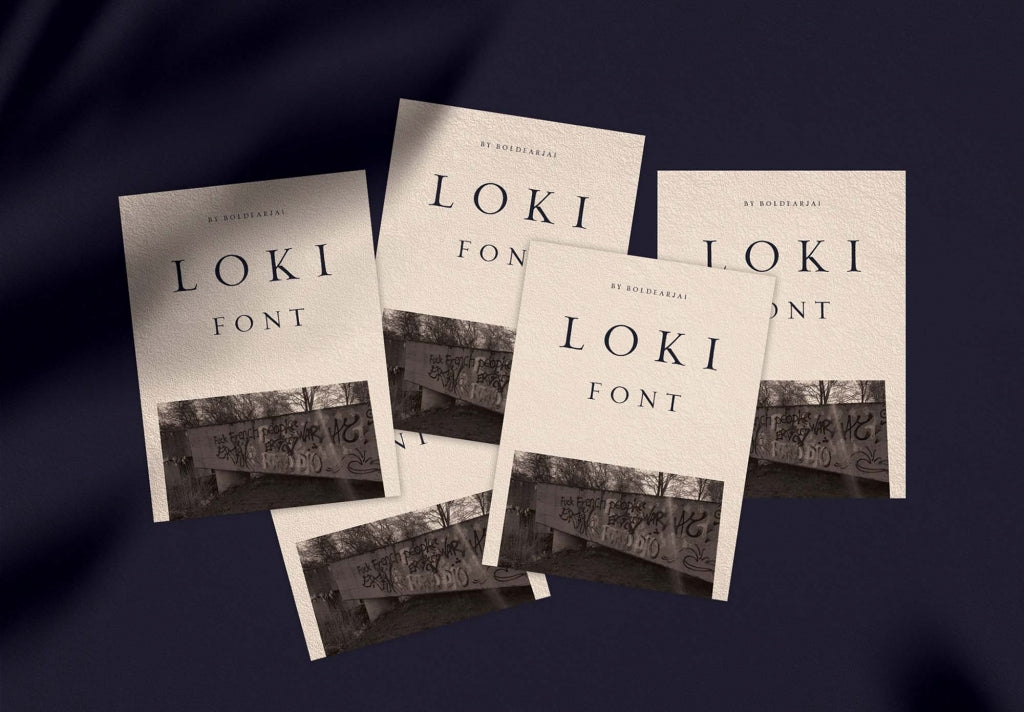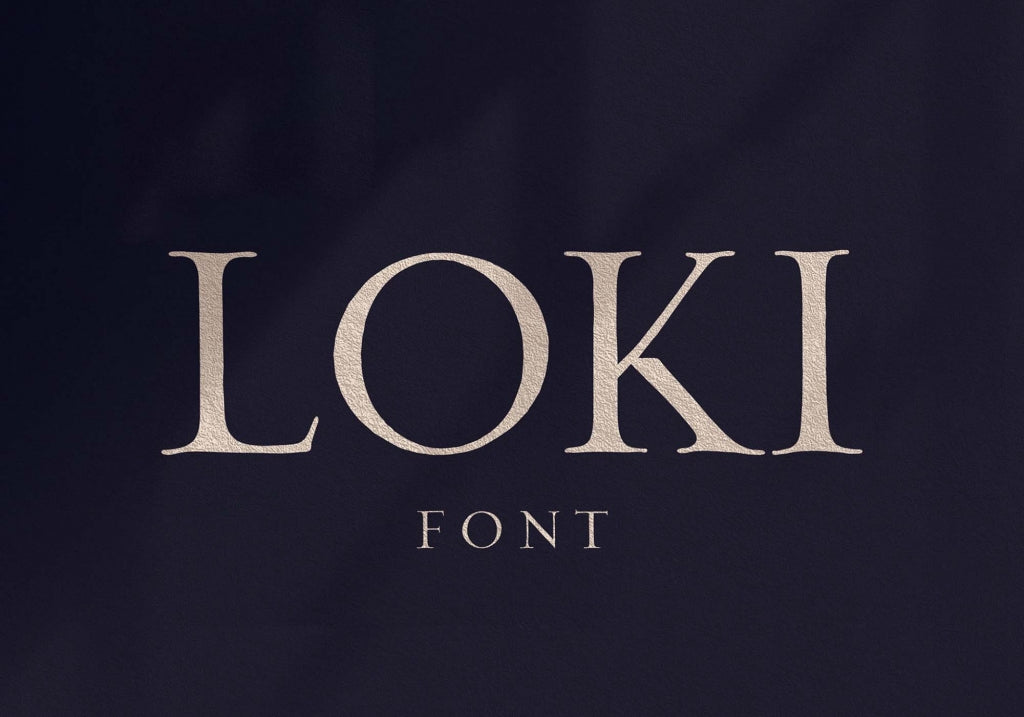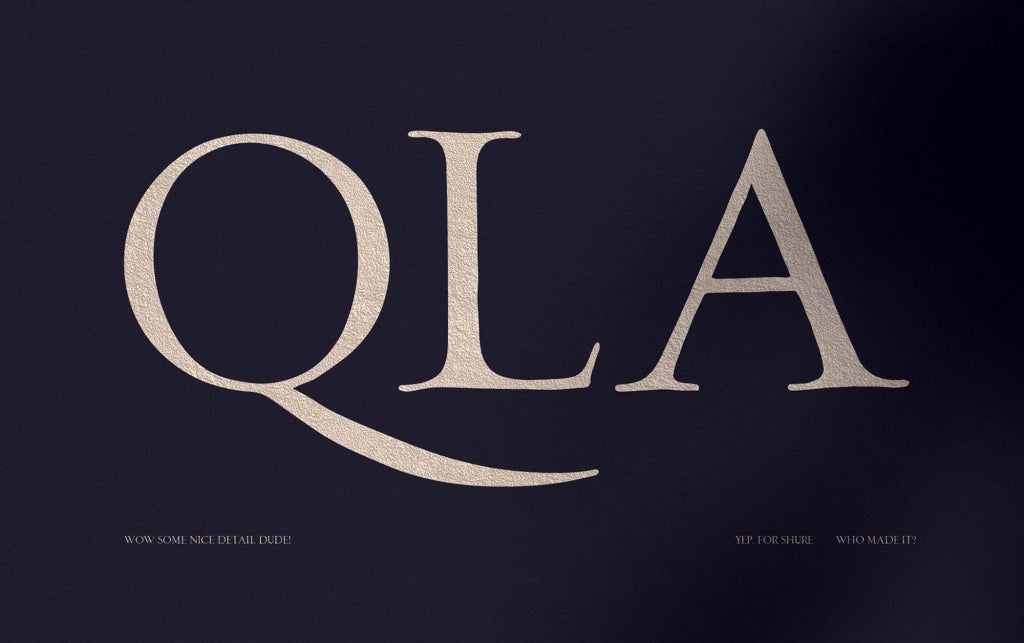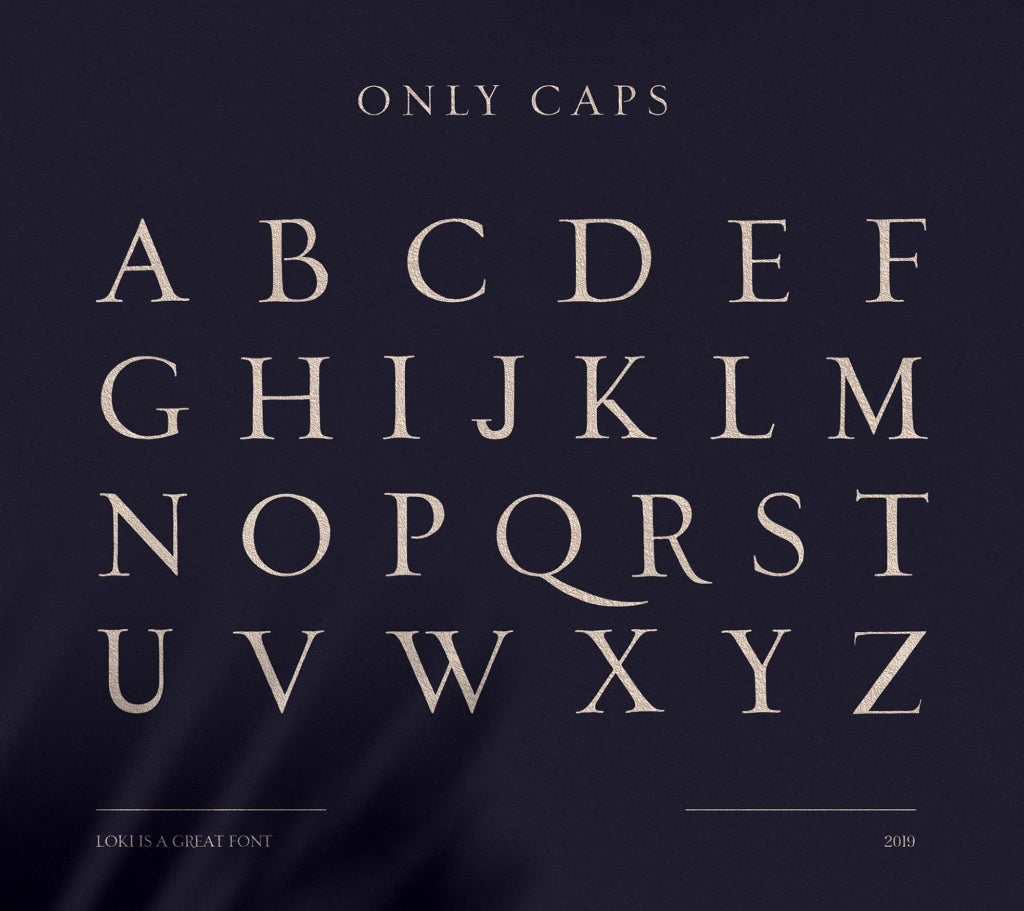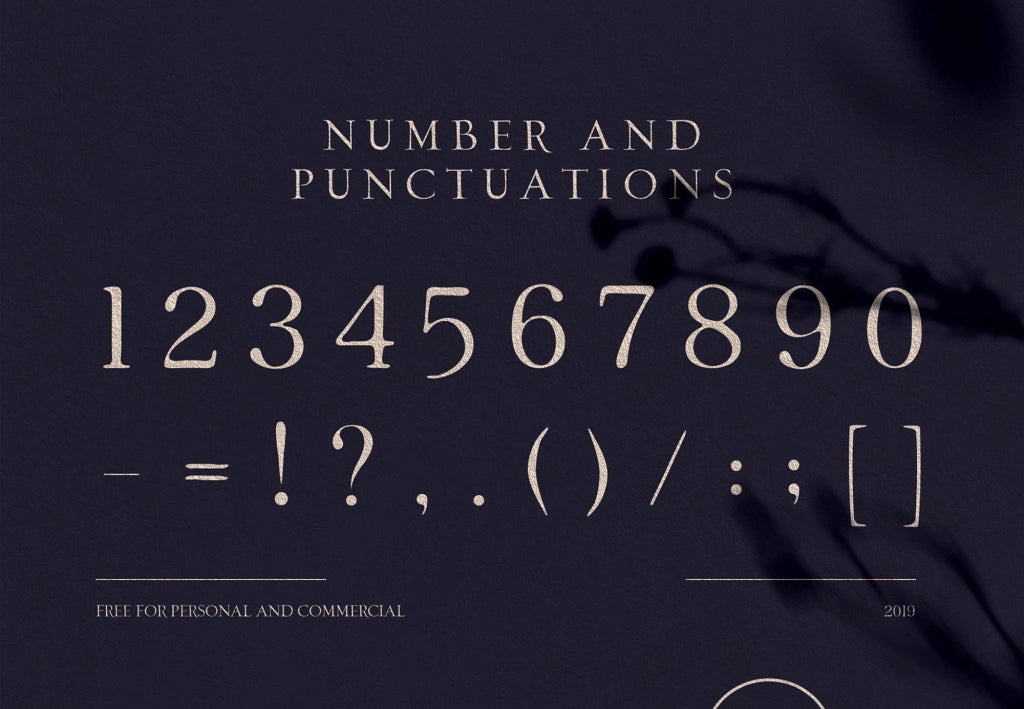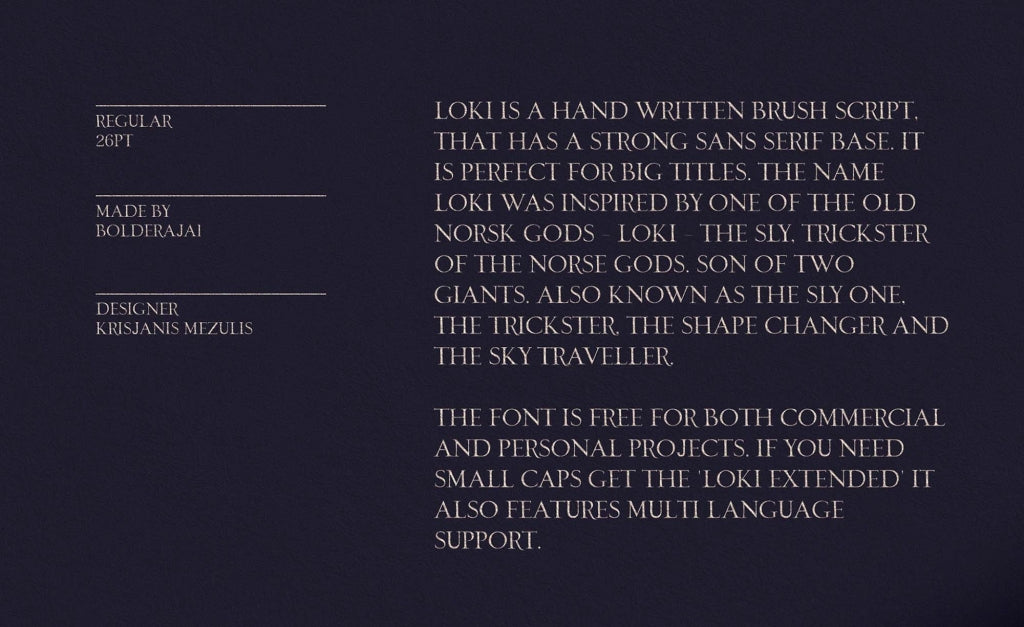
Loki Serif Script Font
Tom Hiddleston did a spectacular job portraying Loki, the fictional supervillain of the Marvel universe. But today, we give Loki a new presentation, one that you actually add to your projects without copyright infringement. This is Loki, a serif font designed by Wildones Design.
This typeface includes a set of uppercase letters, numbers, punctuations, and symbols that enables it to jump right off the page/screen for a project that enthusiastic viewers will enjoy. Loki, available in TTF format with its distinctive designs, can be used for both personal and commercial purposes. This means that you can use it for posters, flyers, and banners with branding designs or event ads, packaging designs for cosmetics and perfumes, magazines and book titles as well as texts, UX and UI projects, artwork with quotes, etc.